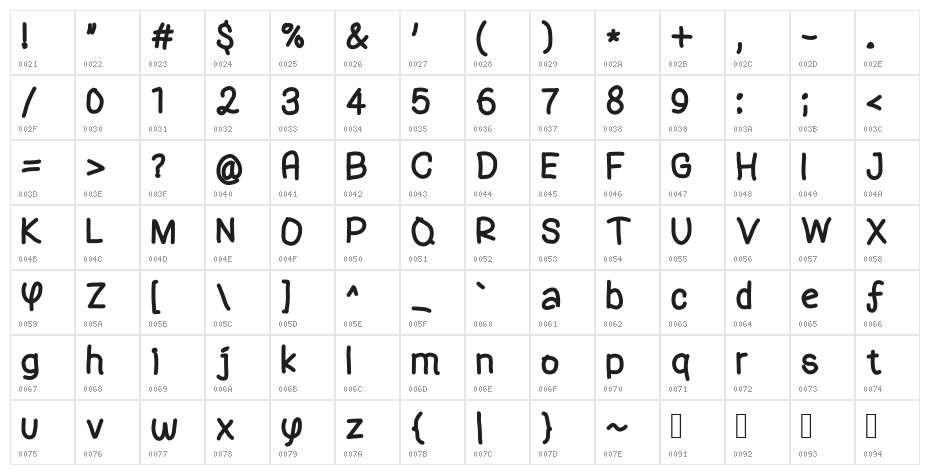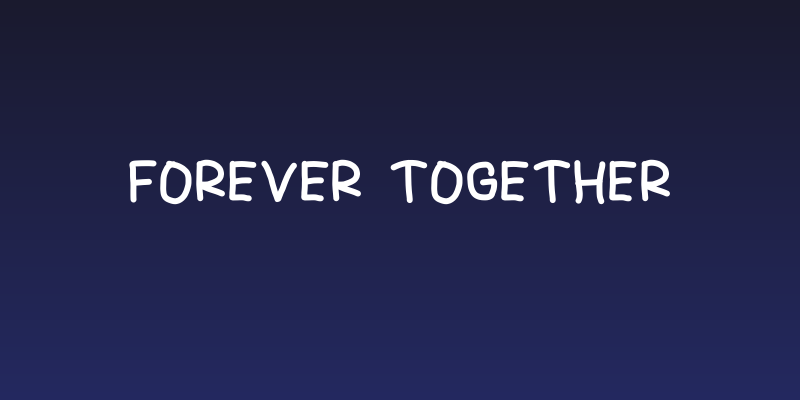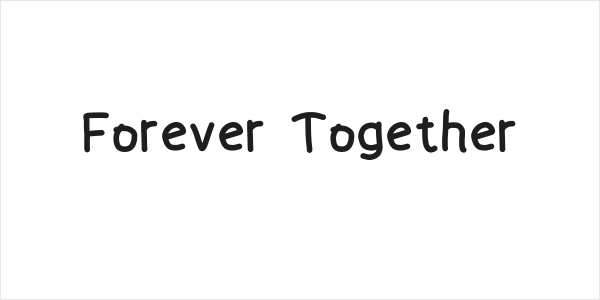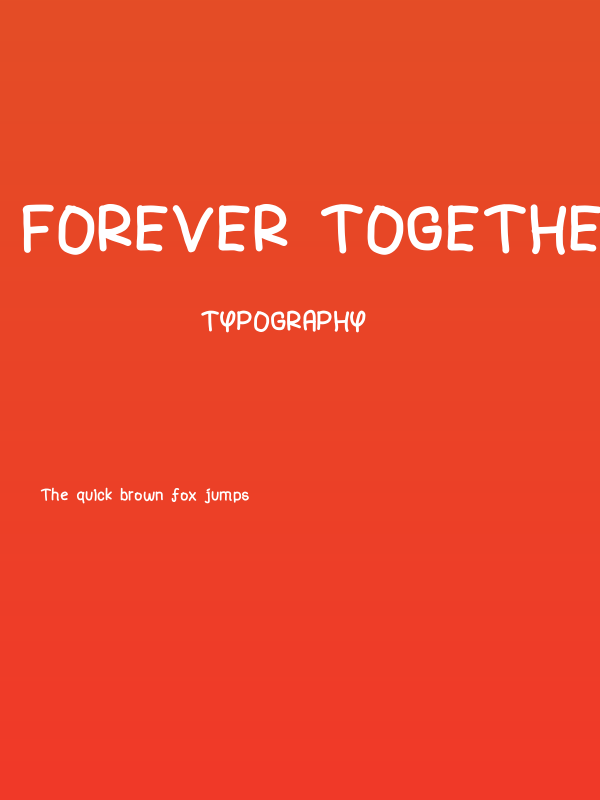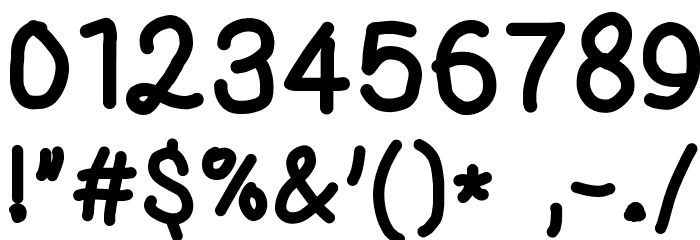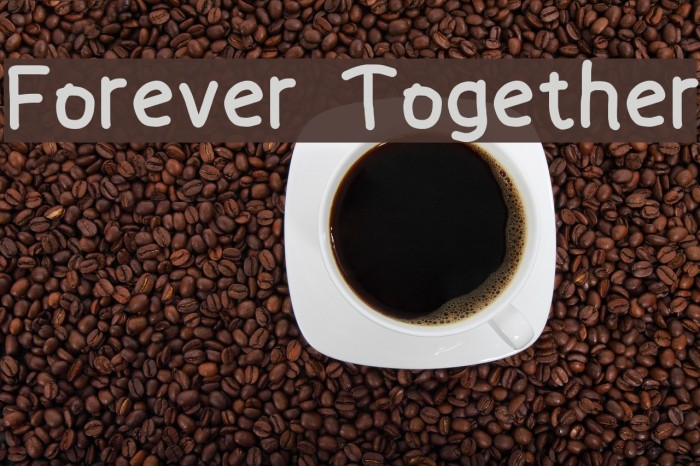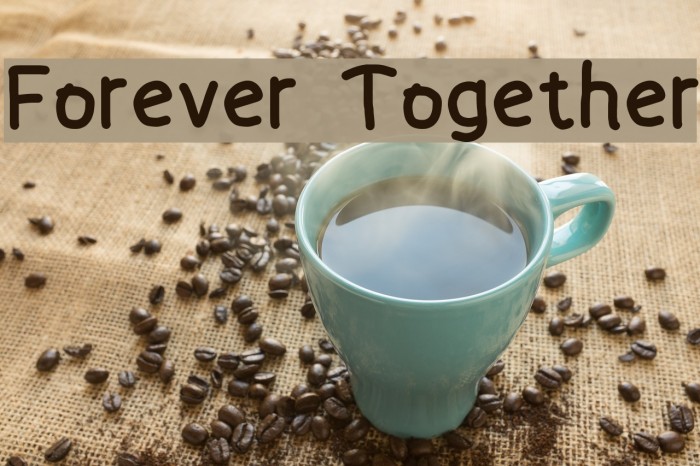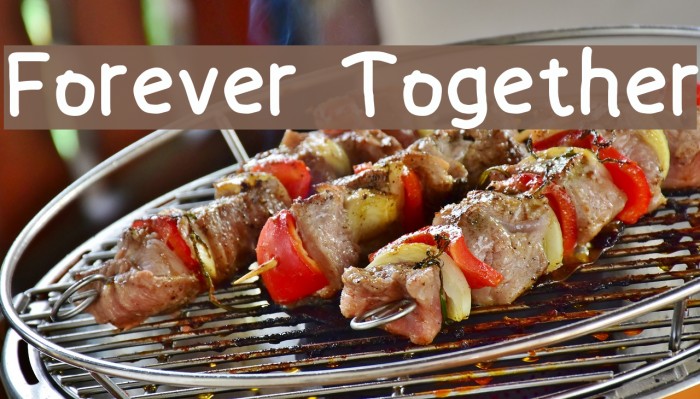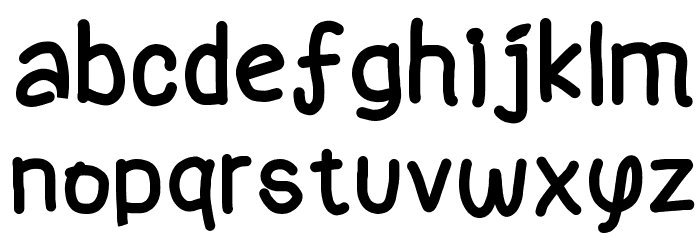
Forever Together Font
Forever Together Description
This playful and whimsical font features rounded, bold characters with a hand-drawn appearance. The letters have a consistent thickness, contributing to a friendly and approachable style. The uppercase and lowercase letters maintain a uniform height, while the numbers and special characters are designed to match the overall aesthetic. The font's informal and casual vibe makes it suitable for projects that aim to convey warmth and friendliness.
| Overall Style | Casual |
| Use Case | Headlines, Logos, Informal Text |
| Proposed Projects | Ideal for children's books, greeting cards, playful branding, and casual invitations. |